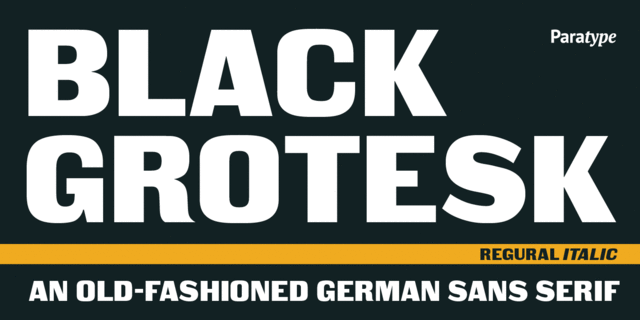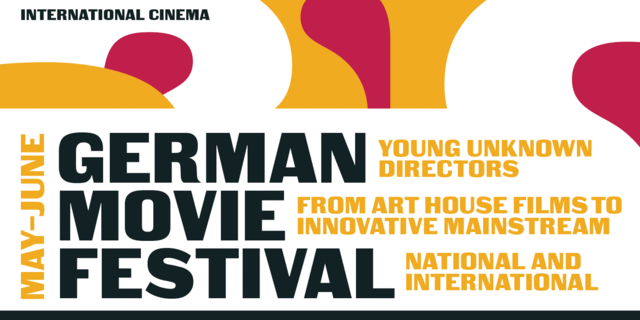
About Black GroteskDesigned at ParaType (ParaGraph) in 1997 by Tagir Safayev. Based on Gasetny Chorny (“Newspaper Black”), of Ossip Lehmann foundry, St.-Petersburg, 1874, and Kompakte Grotesk of Haas. An old-fashioned German sans serif “Grotesque”. For use in advertising and display typography.
Features of font family Black GroteskThe hit of the decade:
Hit of 1910s Hit of 1920s Close to historical original:
Associations for font family Black GroteskTypeface personality and character:
heavy, notable, bright, active, splashy, convincing, solid, serious, reliable, self-assured, strong, stable, industrial, tough, ambitious, rigid, severe, conservative, persistent, urgent